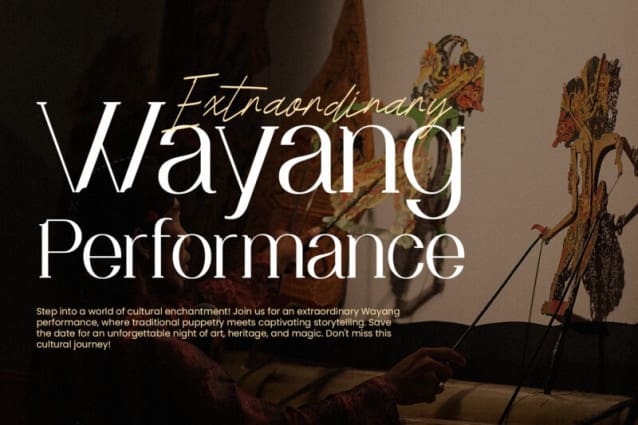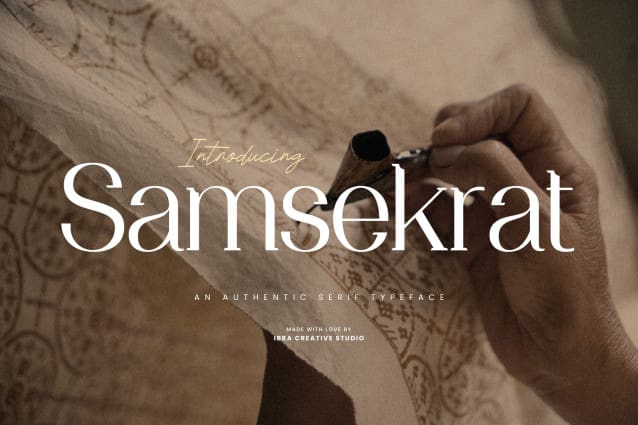
Samsekrat Font
Samsekrat Font is an authentic serif typeface that exudes timeless elegance and sophistication. With its meticulously crafted letterforms, Samsekrat strikes a harmonious balance between tradition and modernity, making it versatile for a range of design applications. The serifs are distinct and refined, lending a classic aesthetic to the typeface, while subtle nuances in letter spacing and stroke weights contribute to its overall grace. Samsekrat’s authenticity shines through in its attention to detail, capturing the essence of traditional serif typography while maintaining a contemporary edge. This typeface is a testament to the craftsmanship and artistry behind authentic design, making it a compelling choice for projects that demand a touch of refined character and enduring style.